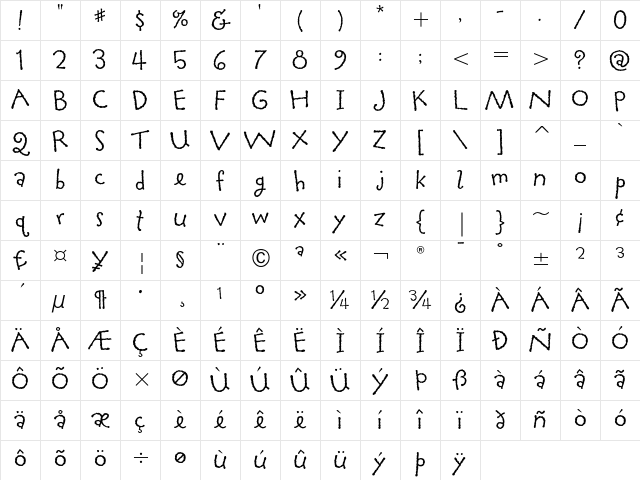
Complete Tapioca ITC Regular glyph index. Displaying only characters natively supported by Tapioca ITC Regular font.
Tapioca ITC is a composed and adaptable typeface that performs quietly and consistently across a wide range of design contexts.